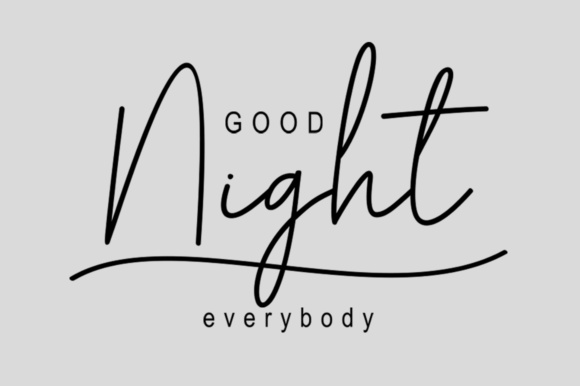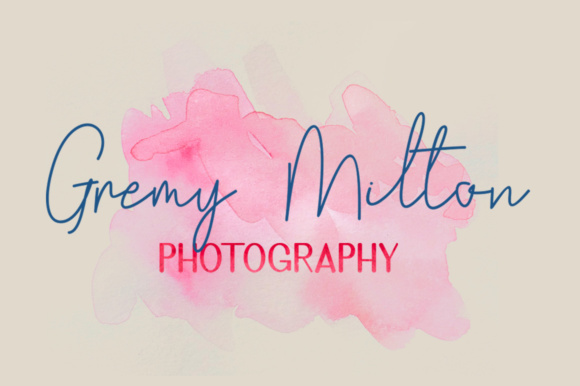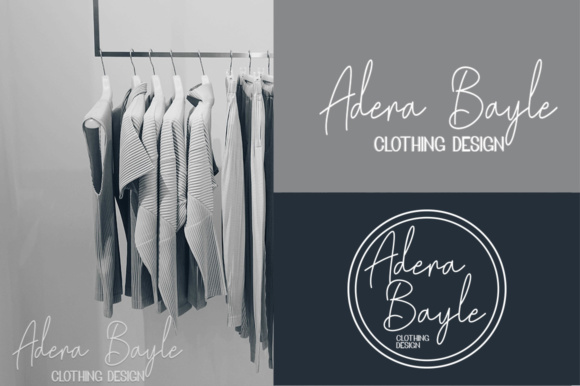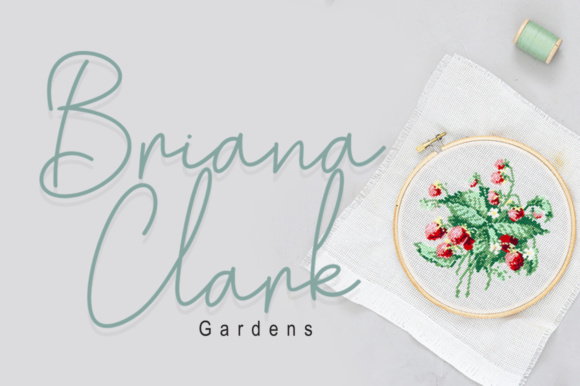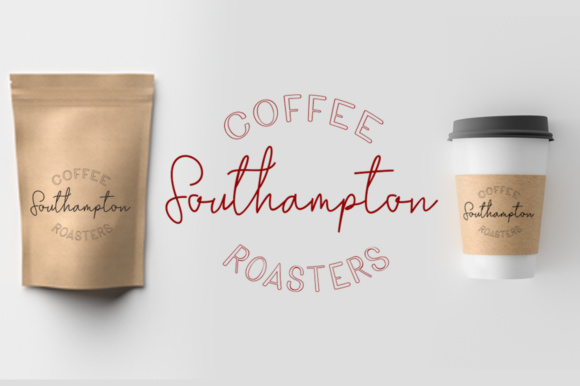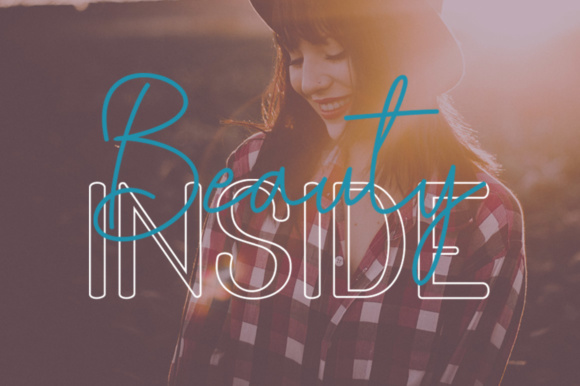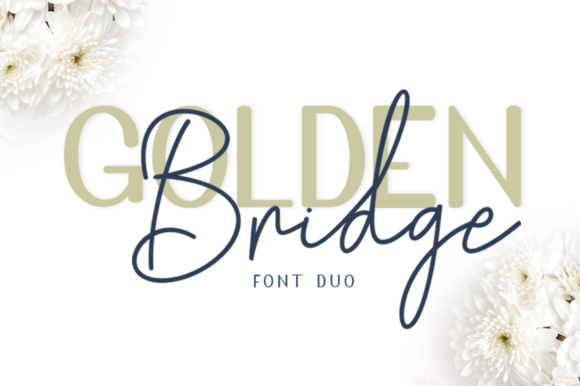
Introducing the Golden Bridge Font: Elevate Your Designs with Elegance and Sophistication
In the world of typography, a well-crafted font can make all the difference in transforming a design from ordinary to extraordinary. For designers and crafters seeking to add a touch of elegance and sophistication to their work, the Golden Bridge Font is an exceptional choice. This remarkable font duo combines a signature script with a sans serif in three distinct weights/styles, offering a contemporary and gorgeous feel that is sure to add an editorial presence to your designs.
The Golden Bridge Font Duo: A Perfect Harmony of Style and Versatility
The Golden Bridge Font is not just a single font, but a thoughtfully curated duo that caters to a wide range of design needs. It consists of two complementary fonts:
- Signature Script: The script font in the Golden Bridge duo is designed to add a personal touch to your designs. With its flowing lines and elegant curves, it brings a sense of sophistication and luxury. Ideal for use in headings, titles, and anywhere you want to make a statement, this script font exudes a high-end feel that can elevate your projects.
- Sans Serif in Three Weights/Styles: To complement the script font, the Golden Bridge duo also includes a sans serif font available in three distinct weights/styles. This versatility allows you to use the same font family for both headings and body text, ensuring consistency across your designs while offering flexibility in terms of styling. Whether you need a light, regular, or bold style, the Golden Bridge sans serif font has got you covered.
Key Features of the Golden Bridge Font
So, what makes the Golden Bridge Font stand out from the myriad of fonts available? Here are some key features:
- Contemporary and Gorgeous Feel: The Golden Bridge Font duo boasts a modern aesthetic that feels both fresh and timeless. Its clean lines and elegant curves make it perfect for designs that require a touch of sophistication.
- Editorial Presence: If you’re looking to give your designs an editorial quality, the Golden Bridge Font is an excellent choice. Its refined appearance makes it suitable for high-end publications, fashion brands, and any project that demands a professional look.
- Versatility: With a script and a sans serif font, along with multiple weights/styles, the Golden Bridge Font duo offers incredible versatility. You can use it across a variety of projects, from branding and advertising to editorial design and crafting.
Using the Golden Bridge Font in Your Designs
Integrating the Golden Bridge Font into your projects is straightforward. Here are some ideas to get you started:
- Branding and Logo Design: Use the signature script font to create a memorable logo or brand identity that stands out. The sans serif font can be used for taglines or supporting text.
- Editorial Design: Add an editorial touch to your magazines, newspapers, or digital publications with the Golden Bridge Font. Its sophisticated feel works well for headlines and body text.
- Crafting and DIY Projects: If you’re a crafter or DIY enthusiast, the Golden Bridge Font can add a professional touch to your project labels, packaging, or promotional materials.
The Golden Bridge Font duo is a powerful tool for designers and crafters looking to elevate their work with a touch of elegance and sophistication. Its combination of a signature script and versatile sans serif font, along with its contemporary feel and editorial presence, makes it an invaluable addition to any design arsenal. Whether you’re working on a high-end brand project, an editorial piece, or a personal crafting project, the Golden Bridge Font is sure to make your designs shine.